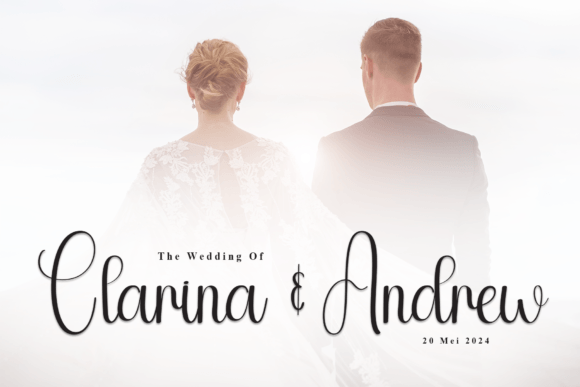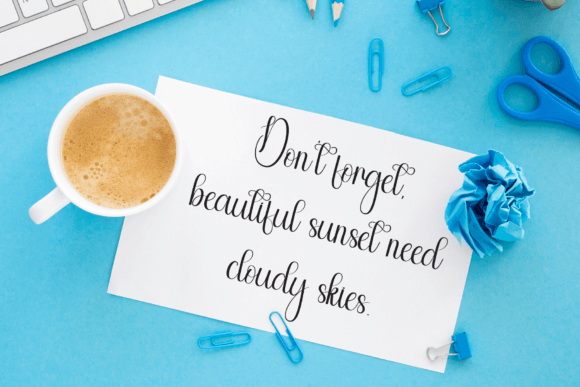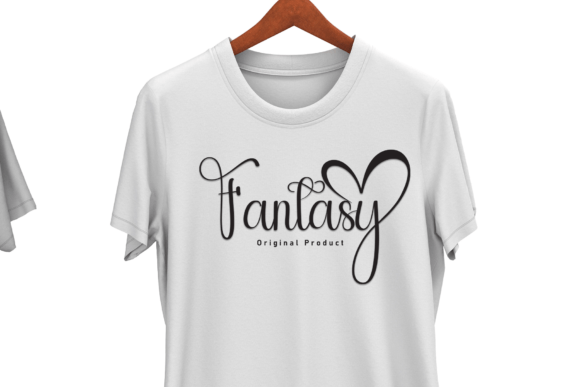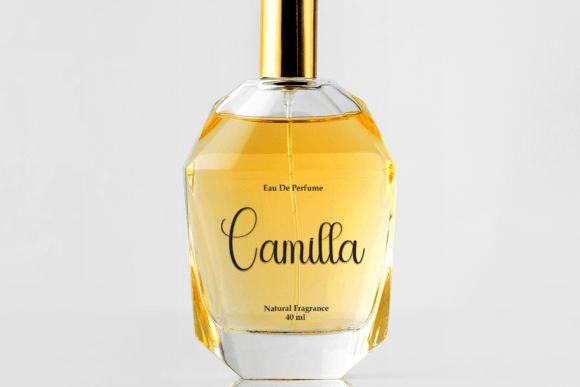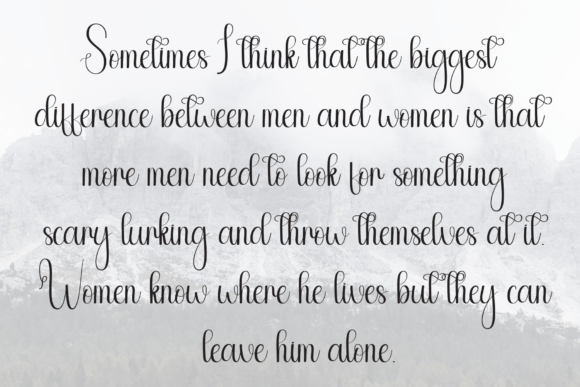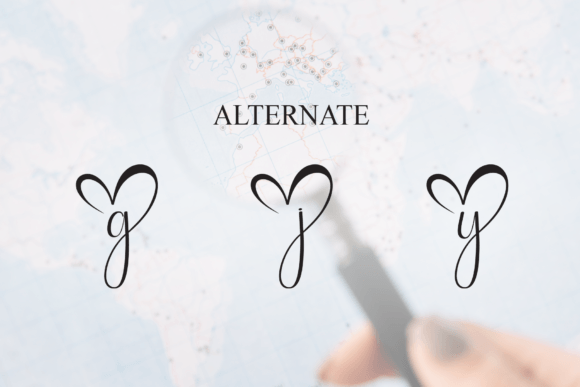
Discover the Charm of Geography Font: Elevate Your Designs with a Unique Handwritten Display Typeface
In the world of typography, a good font can make all the difference in bringing your design vision to life. For designers and crafters looking for a unique and charming handwritten display typeface, look no further than Geography Font. This beautifully crafted font is perfect for adding a touch of sweetness and friendliness to your designs, making it ideal for romantic wedding invitations, personalized cards, and a wide range of creative projects.
The Unique Characteristics of Geography Font
Geography Font boasts a distinctive and charming appeal that sets it apart from other typefaces. Its handwritten style perfectly balances sweetness with a friendly demeanor, giving your designs a warm and inviting feel. The font’s unique characteristics make it versatile and adaptable, allowing you to use it for a variety of design projects, from elegant wedding invitations to playful greeting cards.
Perfect for Romantic Wedding Invitations and Personalized Cards
When it comes to creating romantic wedding invitations or personalized cards, the font you choose can make a significant impact. Geography Font is specifically designed to add a touch of elegance and whimsy to your designs, making it perfect for:
- Wedding invitations: Create beautiful and unique wedding invitations that set the tone for your special day.
- Personalized cards: Add a personal touch to your cards with Geography Font’s charming and friendly style.
- Greeting cards: Create a wide range of greeting cards for special occasions, from birthdays to anniversaries.
Bring Your Design Vision to Life with Geography Font
Geography Font is more than just a typeface – it’s a design tool that can help you bring your creative vision to life. With its charming appeal and versatile style, you can use it to:
- Create eye-catching headlines and titles
- Add a personal touch to your designs
- Convey a sense of warmth and friendliness
Why Choose Geography Font?
With so many typefaces to choose from, why should you choose Geography Font? Here are just a few reasons why designers and crafters love this unique handwritten display typeface:
- Unique and charming style: Geography Font’s distinctive style sets it apart from other typefaces.
- Versatile: Use it for a wide range of design projects, from wedding invitations to greeting cards.
- Easy to use: Geography Font is easy to read and works well in a variety of design contexts.
Tips for Using Geography Font in Your Designs
To get the most out of Geography Font, here are a few tips to keep in mind:
- Use it sparingly: Geography Font’s unique style works best when used sparingly, such as in headlines or titles.
- Pair it with other fonts: Experiment with pairing Geography Font with other fonts to create a unique and eye-catching design.
- Experiment with colors: Geography Font works well in a variety of colors, so don’t be afraid to experiment and find the perfect hue for your design.
Geography Font is a beautifully unique handwritten display typeface that can elevate your designs and bring your creative vision to life. With its charming appeal and versatile style, it’s perfect for romantic wedding invitations, personalized cards, and a wide range of creative projects. Whether you’re a designer or crafter, Geography Font is a must-have addition to your typography toolkit.